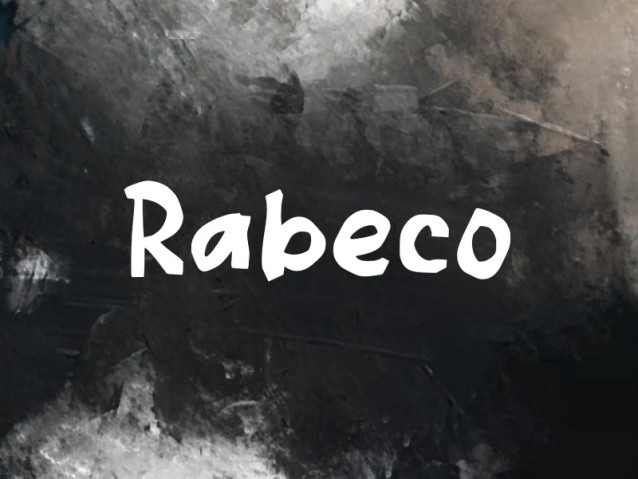
Rabeco Font
Rabeco Font is a simple and modern display font suitable for quotes, logos, headings, titles, and many more. Use it on any of your creative projects, and your designs will become outstanding!